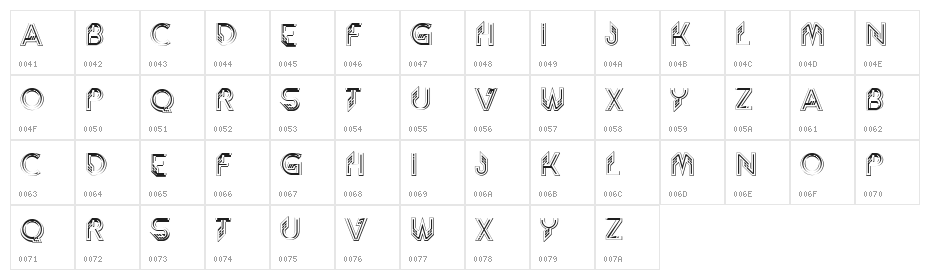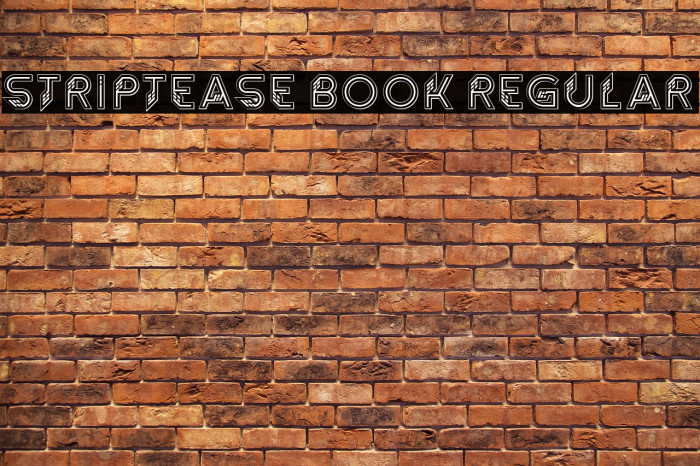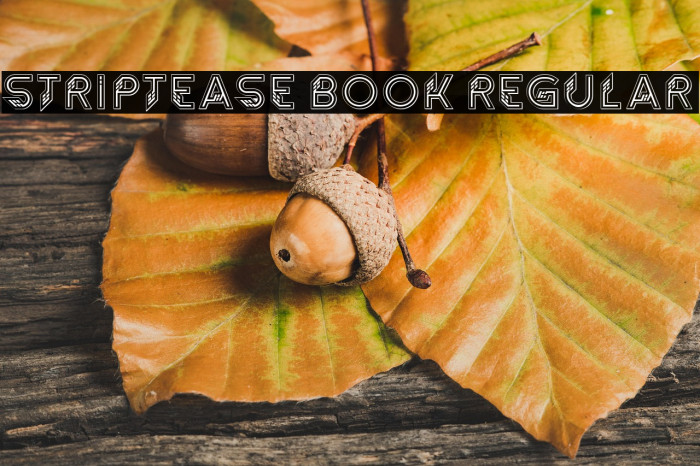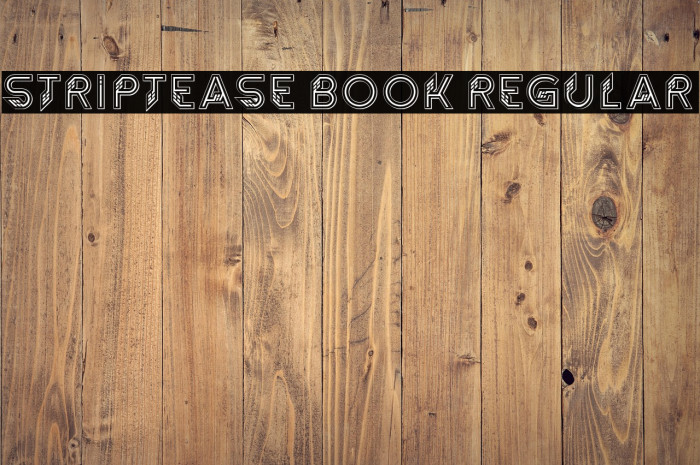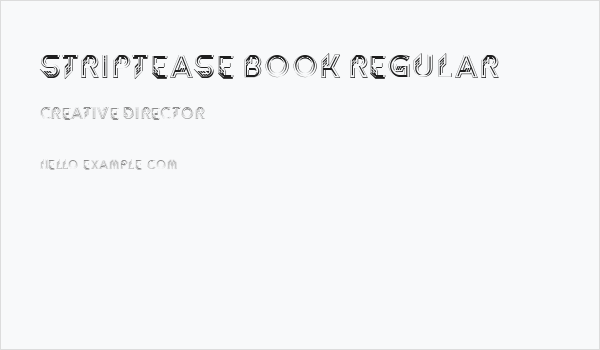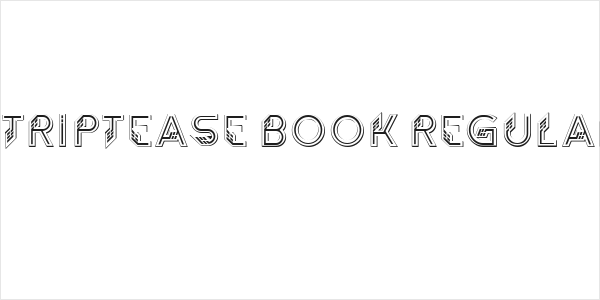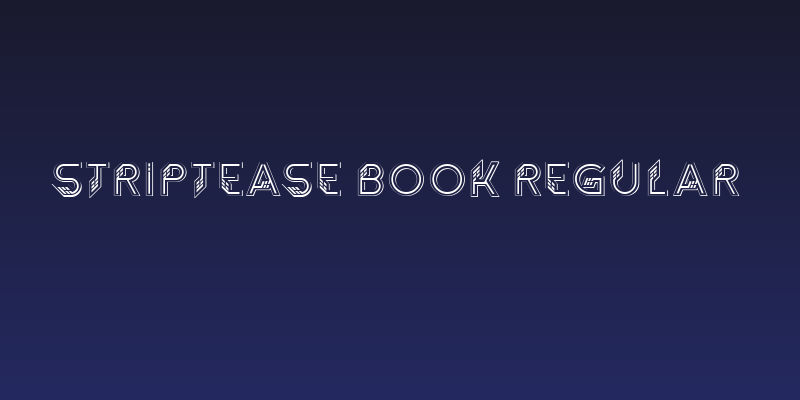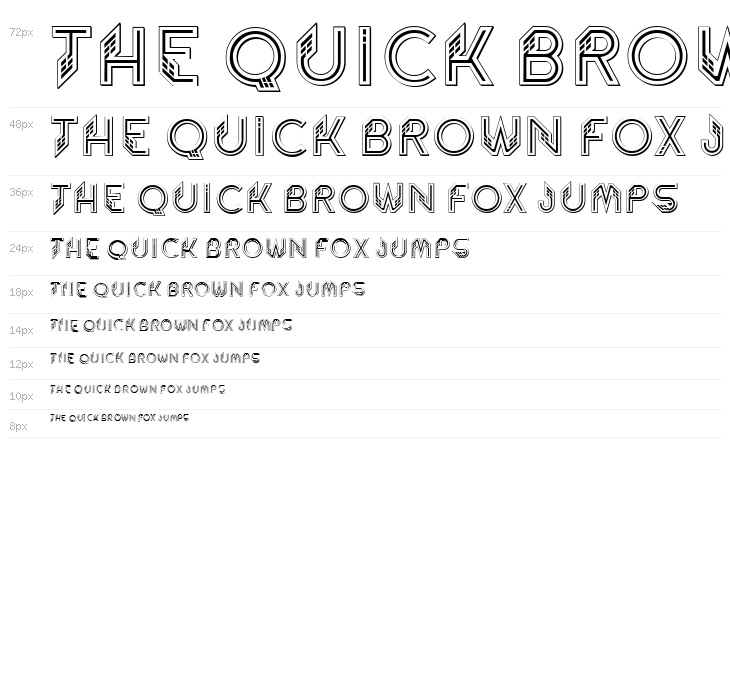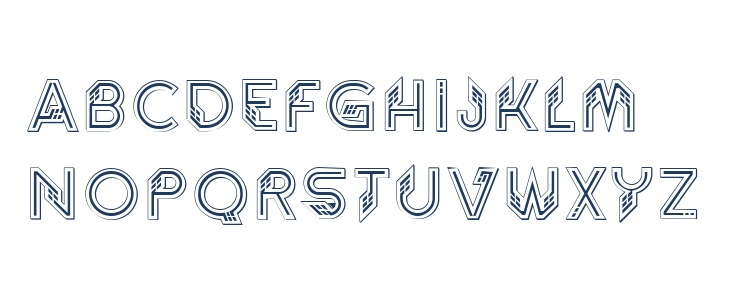
Striptease Book Regular Font
Striptease Book Regular Description
This font features a unique and eye-catching design with a geometric, layered style. Each character is constructed with multiple lines that create a sense of depth and movement. The uppercase letters are bold and structured, making them ideal for attention-grabbing headlines or titles. The overall appearance is modern and artistic, with a hint of retro flair. The font's intricate detailing and bold presence make it suitable for creative projects that require a distinctive and memorable typeface.